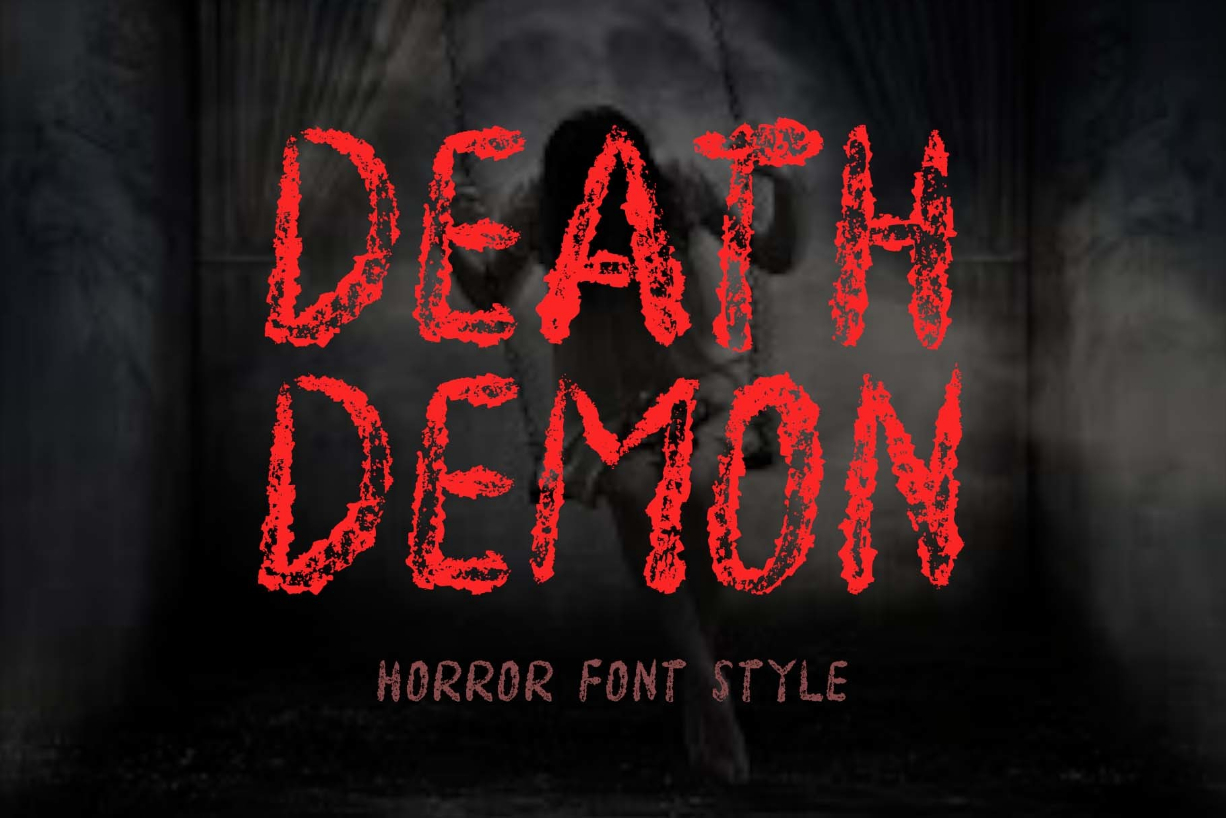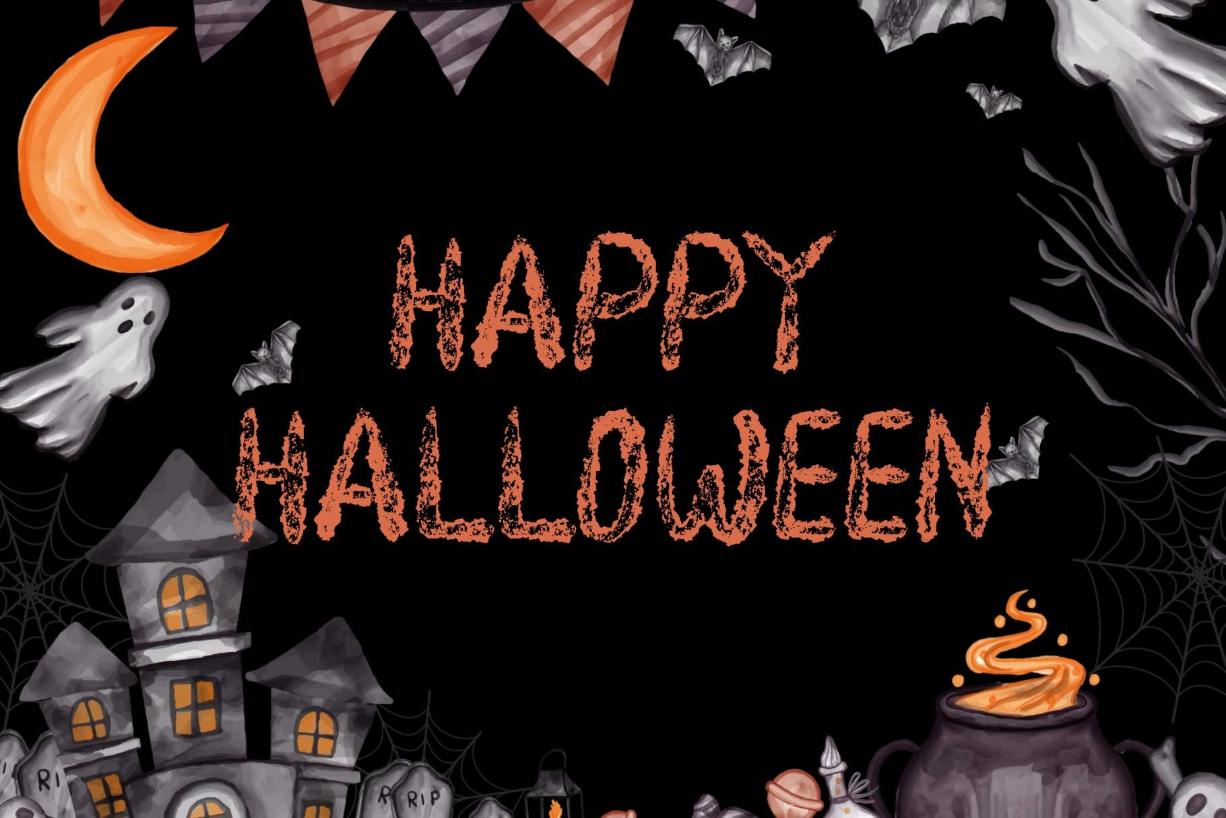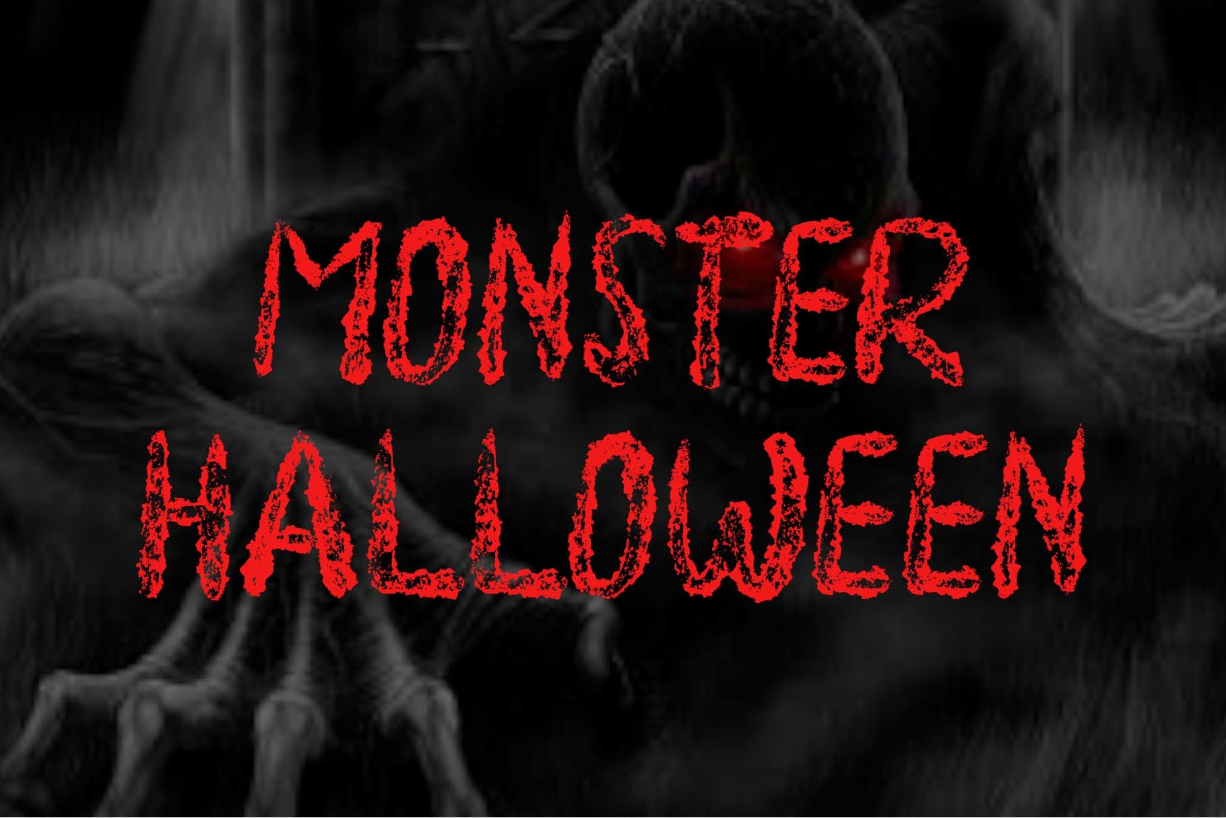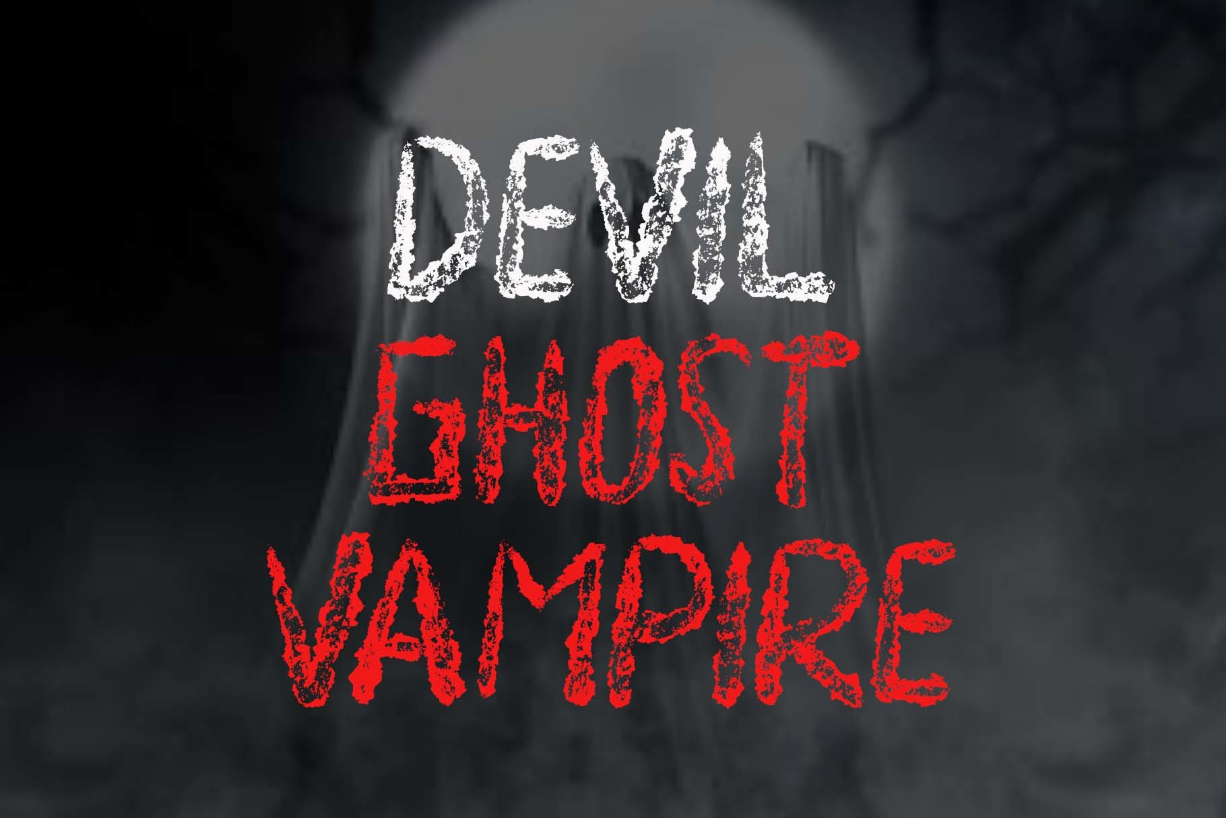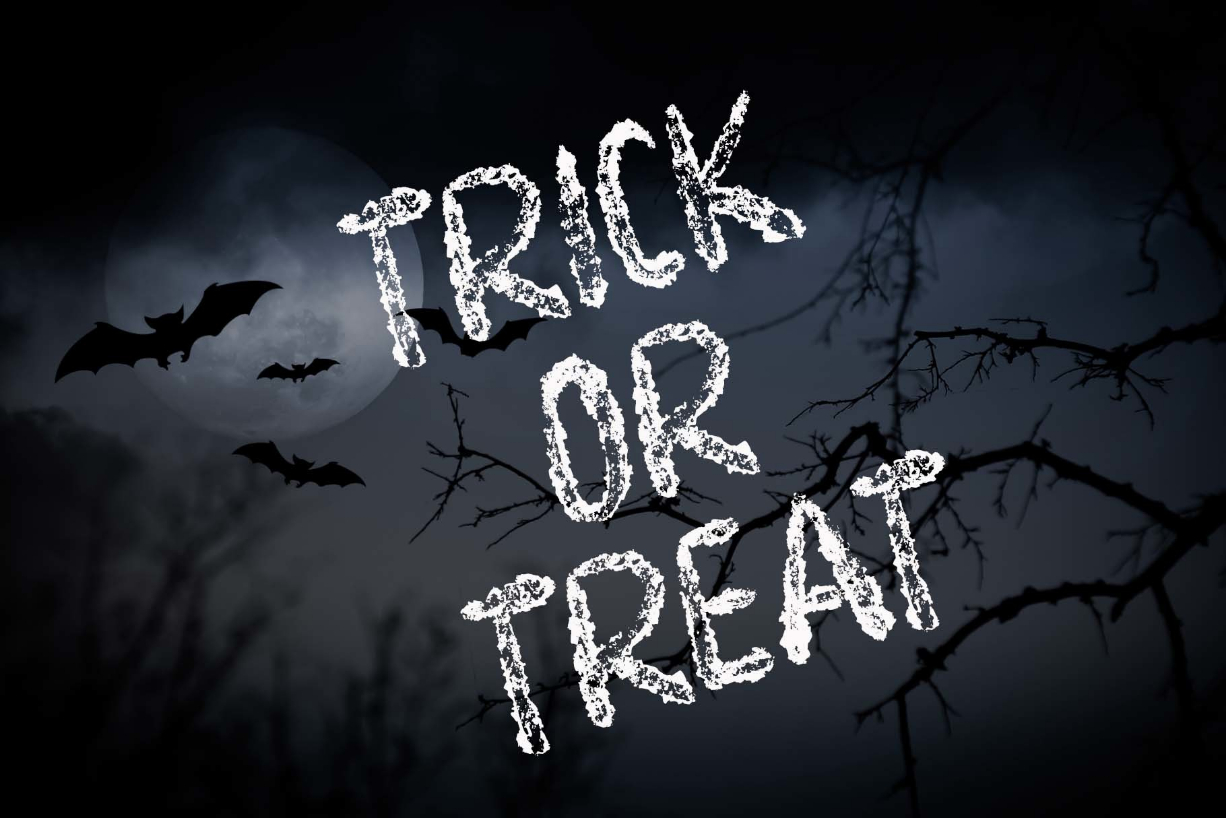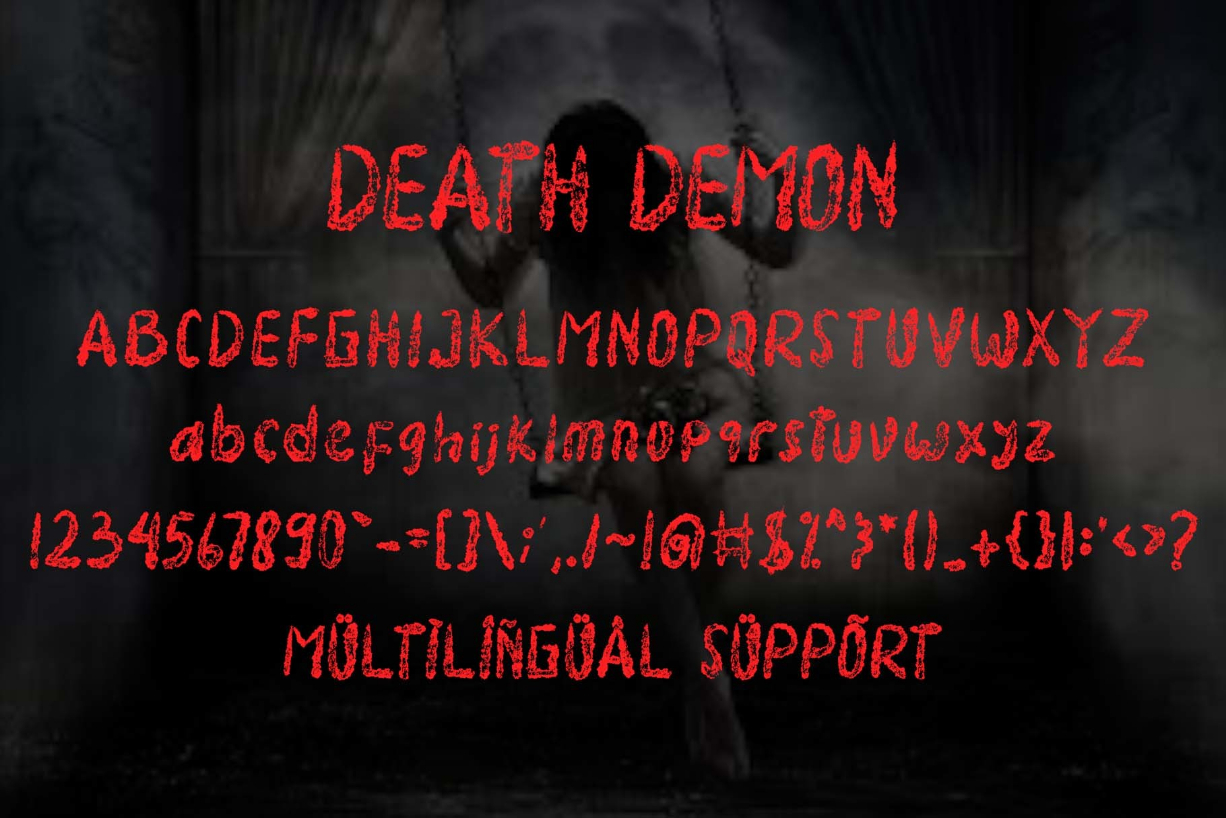
Death Demon Font
About Death Demon Font
“Death Demon” is a horror font that is very scary and full of mystery. This font is perfect for Halloween moments, movie titles, book titles, Halloween party invitations, and more.